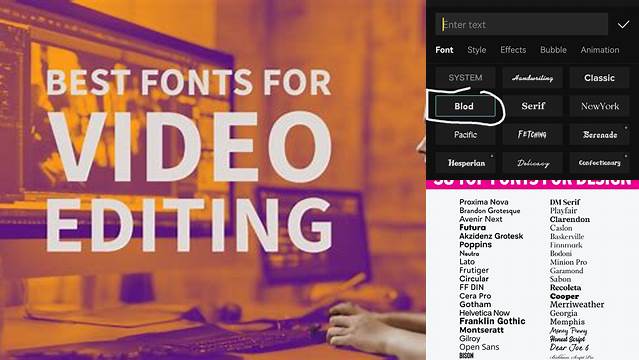
Best Fonts For Editing Reddit: Your Ultimate Guide
Hey everyone, are you looking to spice up your Reddit game? Choosing the best fonts for editing Reddit can make your posts and comments pop, making them more readable and engaging. Let's dive into some top font choices, tips for using them, and how to elevate your Reddit presence. Using the right fonts not only enhances readability but also helps in conveying your message effectively. Different fonts carry different vibes, so picking the perfect one can significantly impact how your audience perceives your content.
Understanding Font Choices for Reddit
Before we get into specific font recommendations, let's discuss what makes a good font for Reddit. Readability is key, especially on a platform where users are constantly scrolling. You want a font that's easy on the eyes, even when viewed on smaller screens or in dark mode. Consider the font's style. Is it formal, casual, modern, or classic? This choice should align with your content and the overall tone you want to set. The font size and weight also play crucial roles. Too small, and your text will be hard to read; too large, and it can look obnoxious. Similarly, the weight (boldness) can help you emphasize important points without overwhelming the reader. Also, think about font availability. While you can't directly upload custom fonts on Reddit, many widely available fonts render well across different devices and browsers, ensuring consistency for all your readers. Finally, think about the accessibility of your font choice. Ensure the font is clear and doesn't present any challenges for users with visual impairments. Let's not forget the impact of the font on user engagement, too. A well-chosen font can make your posts more appealing, encouraging users to spend more time reading and interacting with your content. Experimenting with different fonts in your drafts can help you see how they affect the overall feel of your posts. The aim is to find a font that not only looks good but also complements the topic and resonates with your target audience. Consider this, if you're writing about a serious topic, a playful font might be out of place, while a formal font could make a fun post feel stiff. Finding the right balance between visual appeal and content appropriateness is crucial for maximizing your impact on Reddit. Another critical factor is font consistency. Mixing too many fonts can make your content look cluttered and unprofessional, so selecting a few complementary fonts and sticking to them is often the best approach.
Top Font Recommendations for Reddit
Now, let's explore some of the best fonts for editing Reddit.
Arial: This is a classic, sans-serif font that's known for its clarity and versatility. Arial is a go-to choice because it's highly readable and works well in both large and small sizes. It's a great option for general use, from headings to body text. Its clean lines make it easy to read, even when the content is viewed quickly. The font’s straightforward appearance ensures that the focus remains on the message, rather than the font itself. It's an ideal choice for those who want to make their text easy to understand without any visual distractions.
Helvetica: Similar to Arial, Helvetica is another sans-serif font that offers excellent readability. It's slightly more sophisticated and often used for a more professional look. The font’s clean and modern design makes it perfect for conveying a sense of order and precision. Its widespread use means it’s consistently displayed across different devices, maintaining a uniform appearance for all users. Helvetica's simple and streamlined style is perfect for emphasizing the content itself, offering a polished appearance that doesn't distract the reader.
Verdana: Verdana is designed specifically for on-screen reading. Its wider spacing and taller x-height make it particularly readable on screens, especially at smaller sizes. This font is a fantastic option if you prioritize legibility. Verdana's design includes a generous amount of space between each character, which makes it comfortable to read. It is particularly useful for extended content where clarity is essential. Its ability to maintain readability even when the font size is reduced makes it a great option for text-heavy Reddit posts.
Georgia: Georgia is a serif font that strikes a balance between classic and modern styles. It's an excellent choice for body text, offering good readability and a touch of elegance. Georgia’s serif design enhances readability, particularly in longer text blocks, providing a welcoming and comfortable reading experience. It brings a sense of sophistication to your Reddit posts. Its elegant design elements can instantly elevate the visual appeal of your text. The font's slight serifs (the small decorative lines at the end of letters) help guide the eye smoothly across the text, promoting a better reading flow.
Roboto: This is a modern, sans-serif font that's highly popular for its clean and friendly appearance. Roboto is widely used across different platforms, so it's a safe bet for ensuring consistent display. This font blends readability with a contemporary aesthetic, offering an excellent option for posts that need a modern touch. Its versatility allows it to work equally well in both headings and body text. The font's design focuses on clarity and usability, making it a great choice for grabbing attention. Its simple yet effective design makes it an excellent choice for maintaining visual appeal.
Open Sans: Open Sans is a humanist sans-serif font that is known for its friendly and approachable style. It’s a popular choice for online content because it is legible and versatile. Open Sans' design is optimized for readability, ensuring your content looks appealing and is easy to understand, especially when displayed at smaller sizes. Its simple, clear design offers a pleasing look while ensuring that the text is easy to read. It works well across different devices and screen sizes, ensuring consistency for all your readers.
How to Implement Fonts on Reddit
Using Markdown: Reddit uses Markdown for formatting, and while you can't directly change the font of your posts, you can use formatting options like bold, italics, and code blocks to emphasize text. For example, you can use
**bold text**to make text stand out,*italic text*to add emphasis, andcodeblocks to present code or specific text in a monospaced font. By using formatting strategically, you can mimic some of the effects of different fonts to enhance the readability and visual appeal of your text. The formatting provided by Markdown is a powerful way to create a visually organized text. -
Font Generators and Third-Party Tools: Since you can't directly change the font, you might consider using font generators or third-party tools. However, keep in mind that the display of these fonts can vary across different devices and browsers. These tools can sometimes introduce compatibility issues, so use them carefully and always ensure the content is readable and accessible to all users. When using these tools, test your content on multiple devices to check readability.
Conclusion: Mastering Fonts for Reddit Success
Choosing the best fonts for editing Reddit is all about making your content look great and easy to read. While you can't change the font directly, you can use a combination of smart formatting, strategic use of Markdown, and attention to detail to achieve the desired results. By focusing on readability, using formatting effectively, and understanding your audience, you can significantly enhance your Reddit presence. Ultimately, the goal is to create content that's both visually appealing and easy for your readers to enjoy. Use the tips and recommendations discussed to make your Reddit posts stand out and connect with your audience. Remember that consistency and clarity are key – so make sure your formatting complements your message and enhances the overall reading experience. Creating content that your audience loves isn't just about the words themselves; it is also about how you present them. Experiment, learn, and find what works best for you! Keep trying new things until you find your perfect style that gets you upvotes and comments. Happy Redditing, guys!